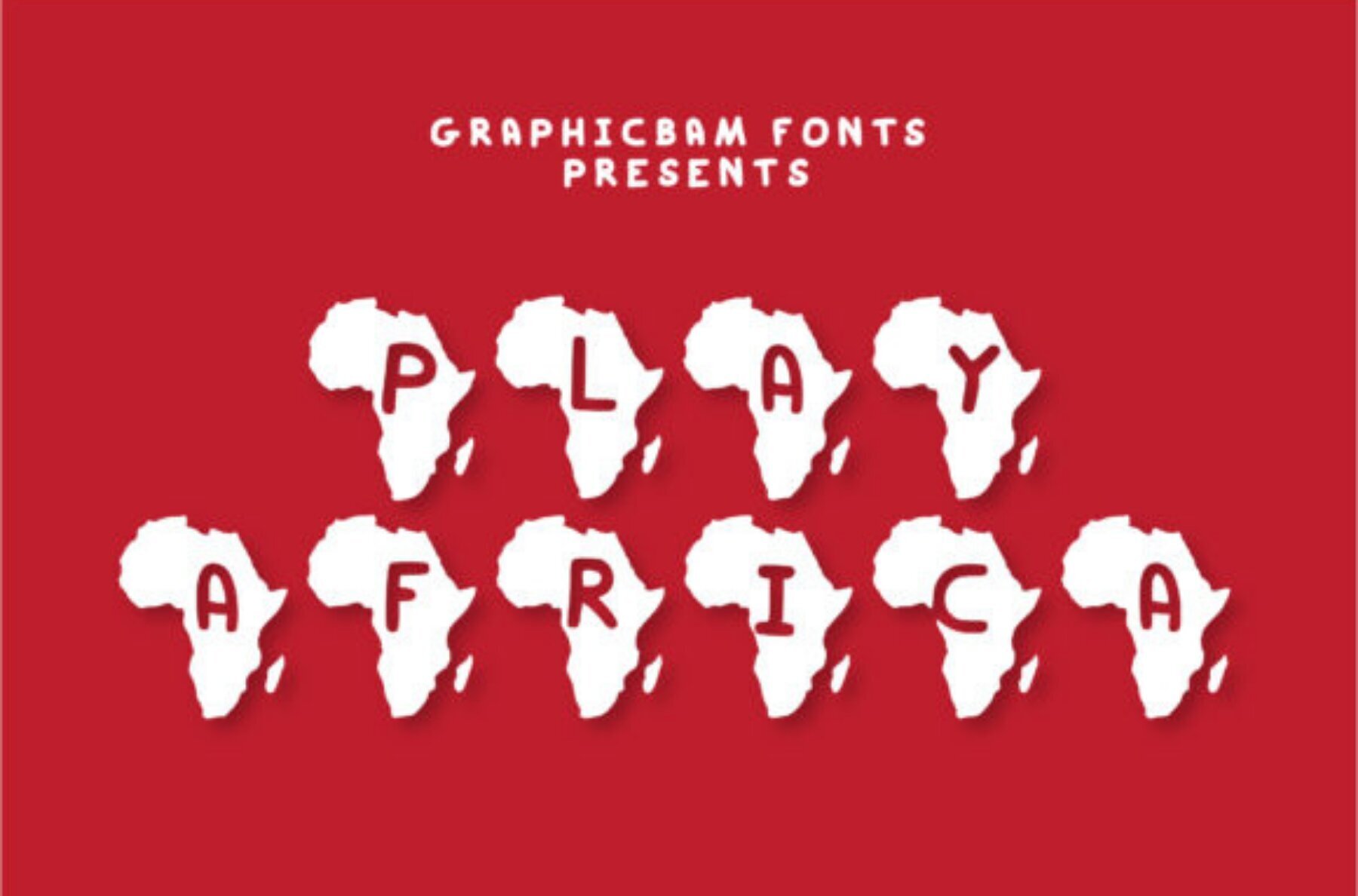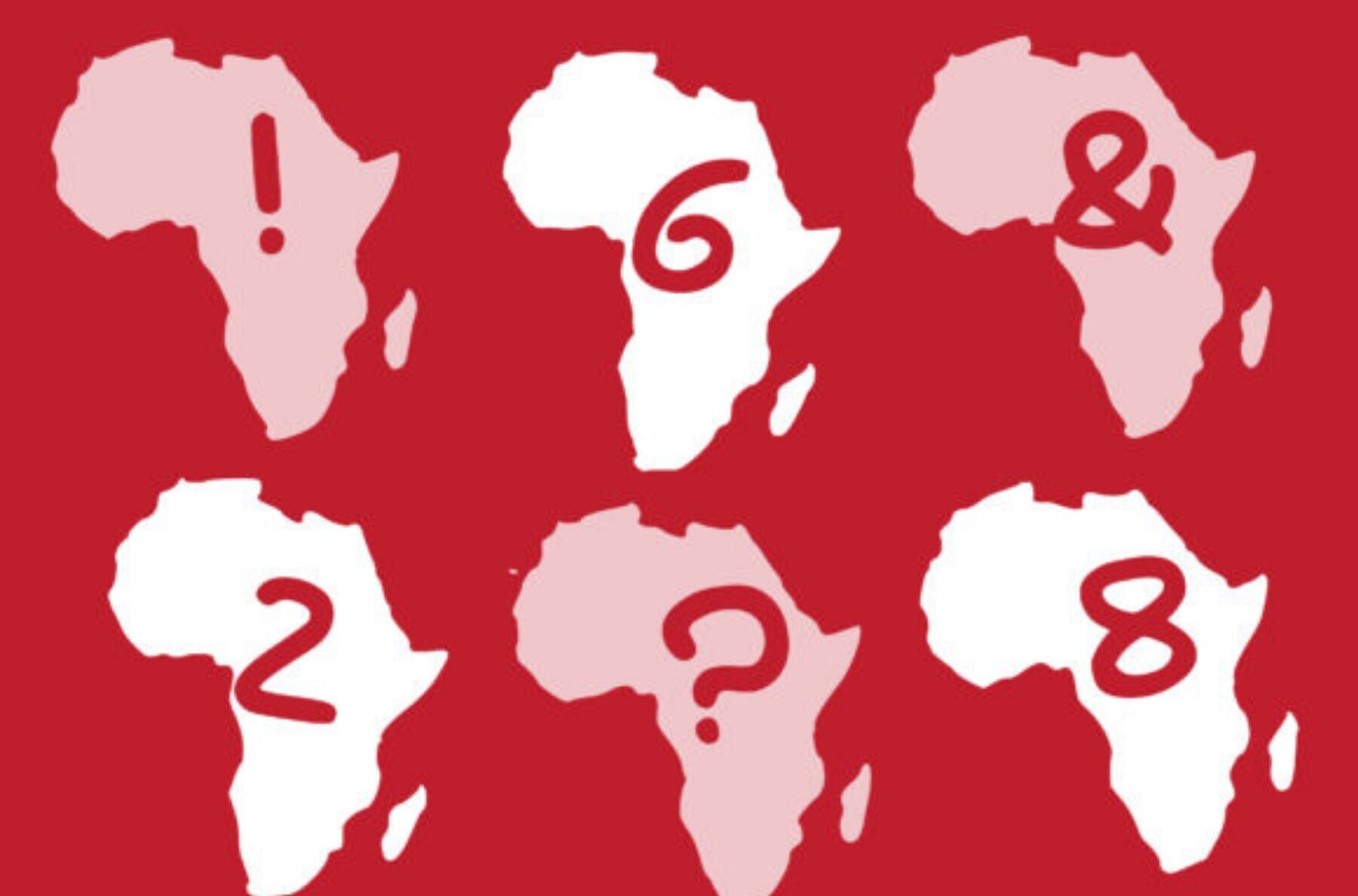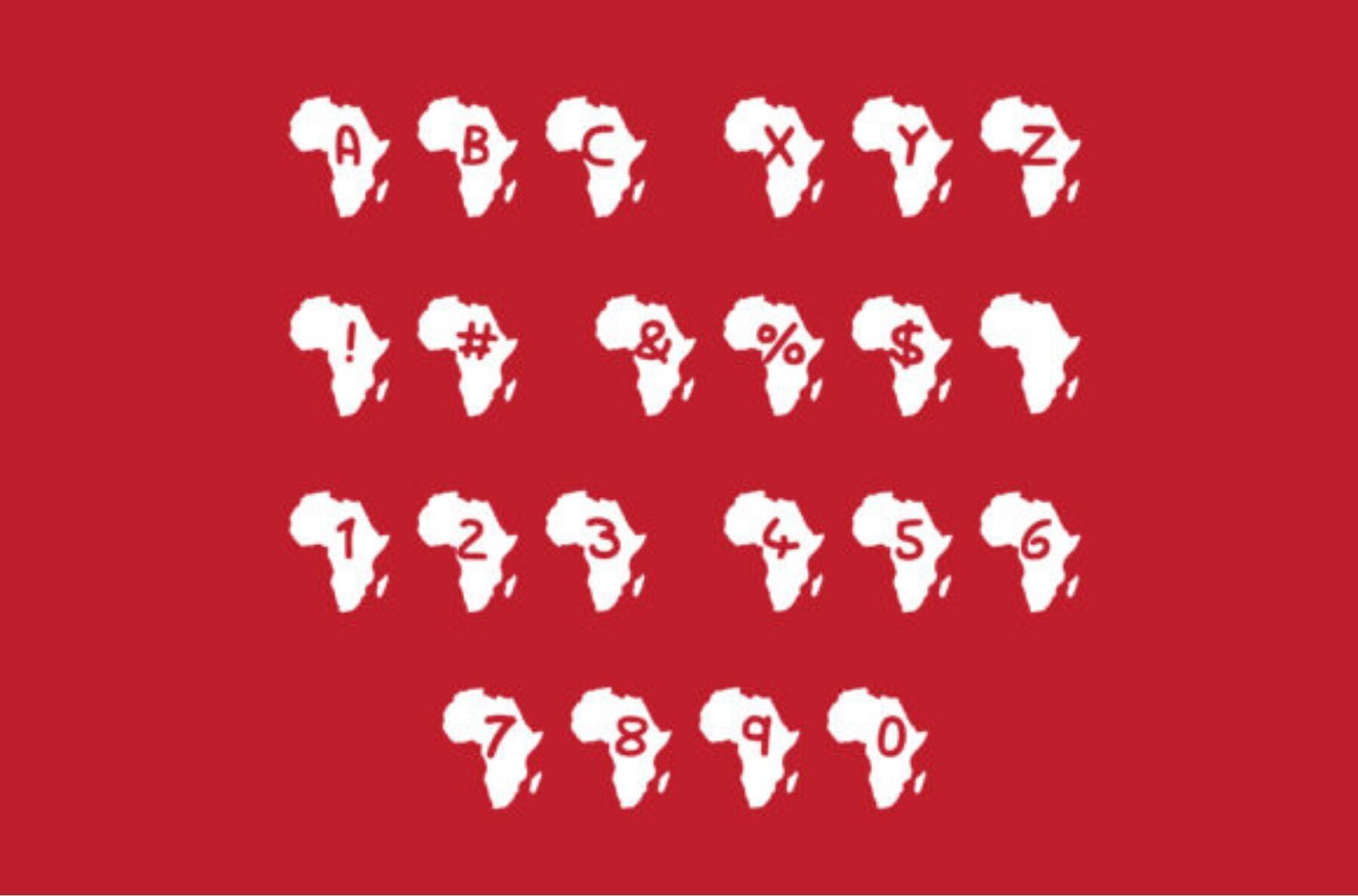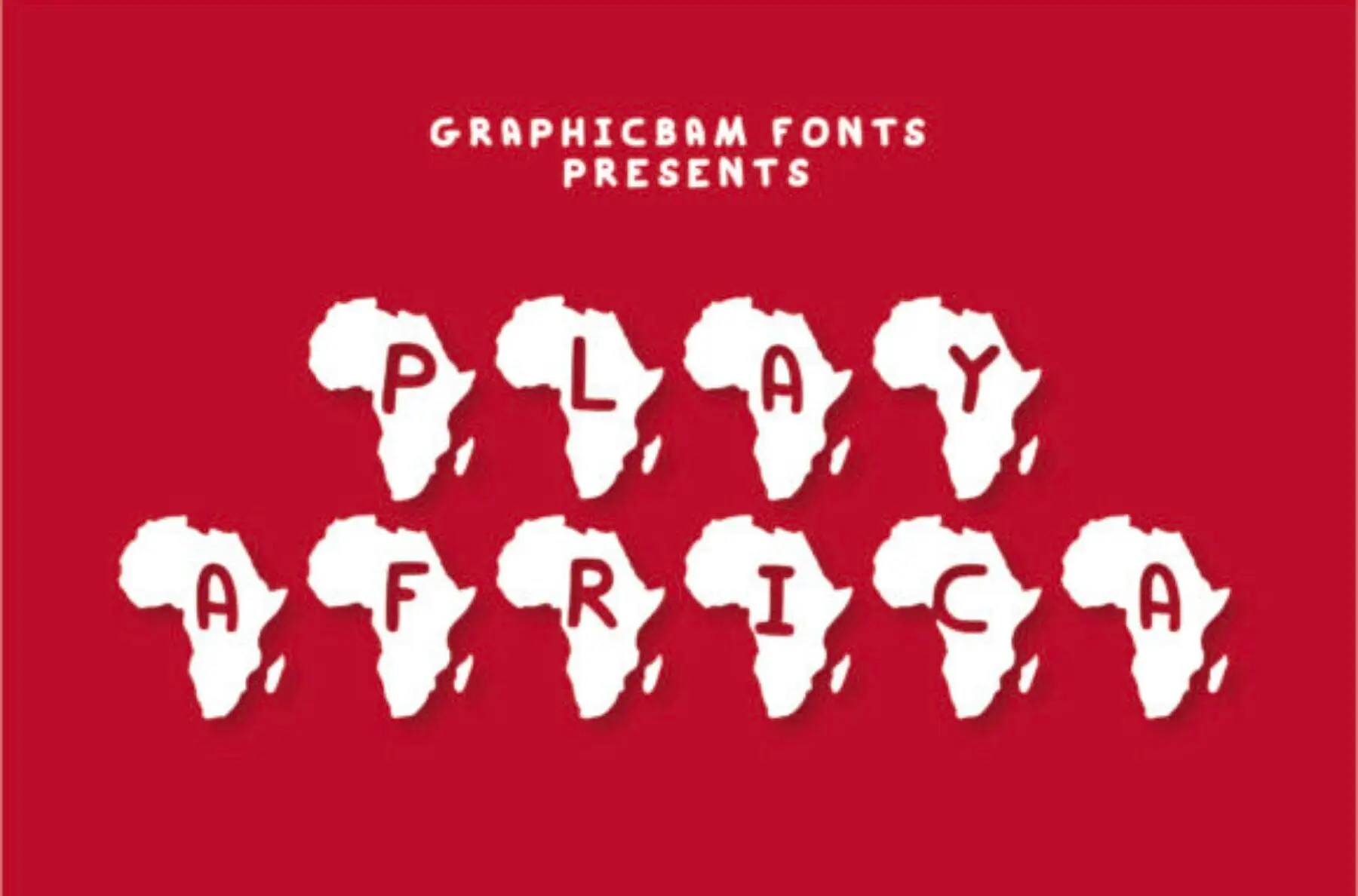
Play Africa Font
Play Africa Regular
Infuse fun and creativity into your projects with Play Africa, a whimsical decorative font by Graphics Bam. Each character carries a unique apple motif, making it a versatile addition to your font collection. Whether designing playful invites or vibrant posters, this font offers a unique flair.Play Africa Decorative Font